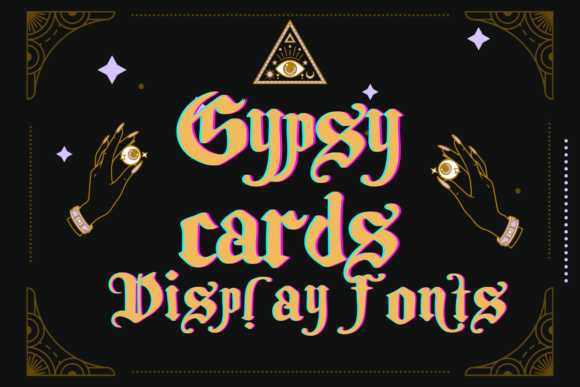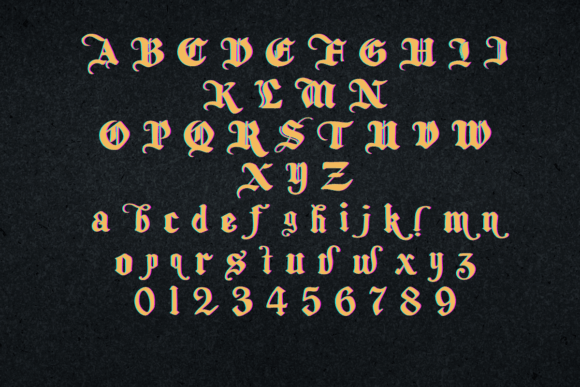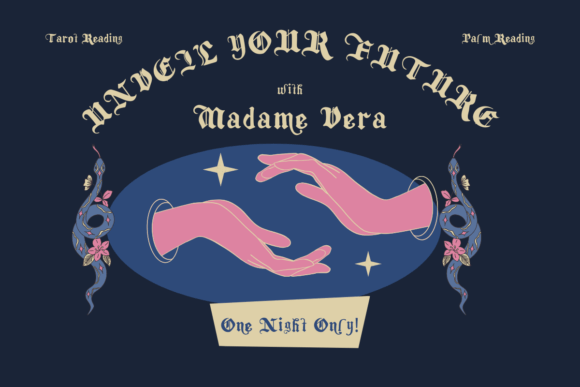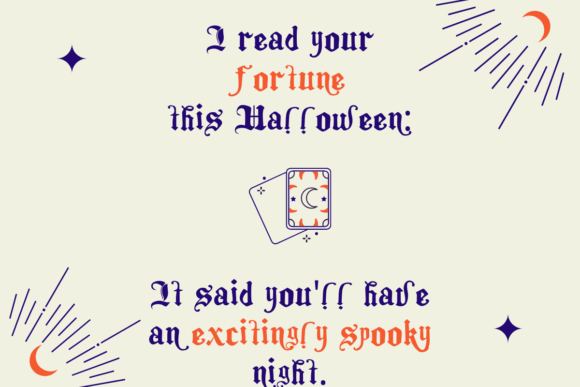
Gypsy Cards Font
About the Gypsy Cards Font
Add a touch of class to your work with the Gypsy Cards Font, a truly exceptional typeface. Introducing Gypsys Card, a bold blackletter display font. Its striking style adds a touch of mystique to any design. Perfect for posters, logos, or any project needing a bold statement. Unlock its vintage charm and captivate your audience with the Gypsy Cards font.
Gypsy Cards excels as a headline font for projects requiring a bold, vintage aesthetic. Its strong forms work particularly well in posters, branding materials for apparel or spirits, and packaging design where a statement is needed. However, its intricate details and weight make it unsuitable for body text or UI elements; readability suffers at smaller sizes.
Consider pairing Gypsy Cards with a clean sans-serif like Futura for a classic contrast, or a more modern geometric sans-serif such as Montserrat for a bolder juxtaposition. A delicate script font could add a touch of elegance, softening the boldness of the blackletter.
The overall personality of Gypsy Cards is bold, mysterious, and slightly rebellious, making it ideal for brands seeking a vintage yet edgy image.
Gypsy Cards Font Example